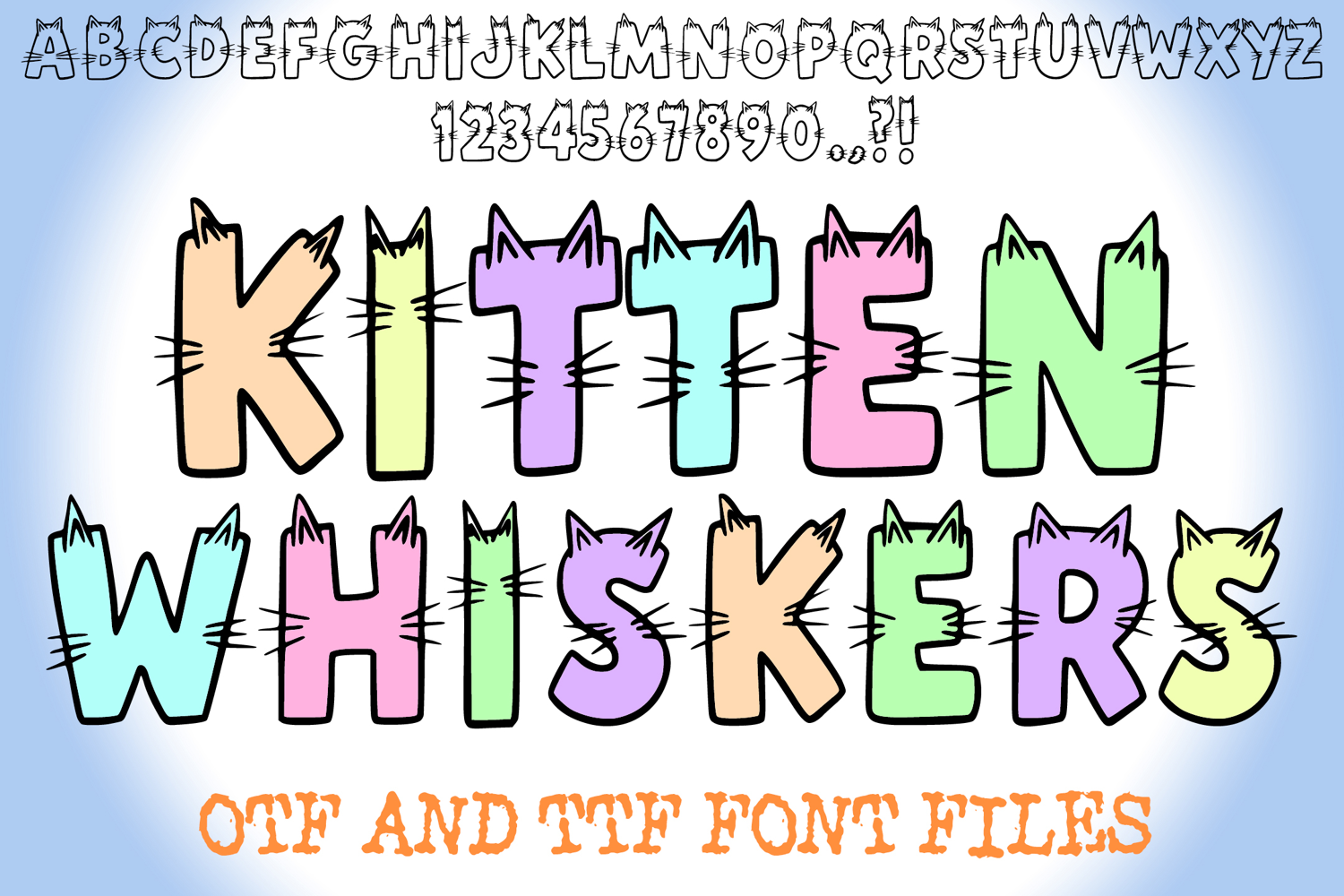
Kitten Whiskers Cat Alphabet Lettering ABC Text Font OTF Cartoon Illustration
A unique style font where you can create your own words and colour them to your vision!
Contains OTF and TTF file. Capital letters , . ? ! and numbers only.